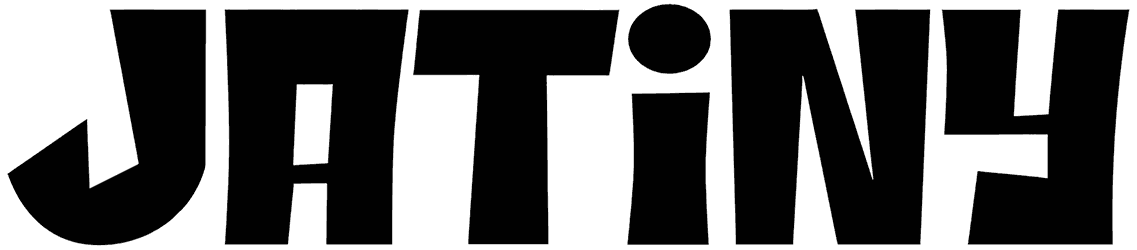
Jatiny Font
To enter the world of children, Jatiny will have amazing offers for you. This cartoon font has a playful appearance with three different weights, which together can be enough to make your writing attractive.
This fancy font‘s prominent and bold state has made it show its leading talent in titles, advertisements, and posters without numbers. But depending on your needs, designing a t-shirt or toy packaging cannot be quiet.